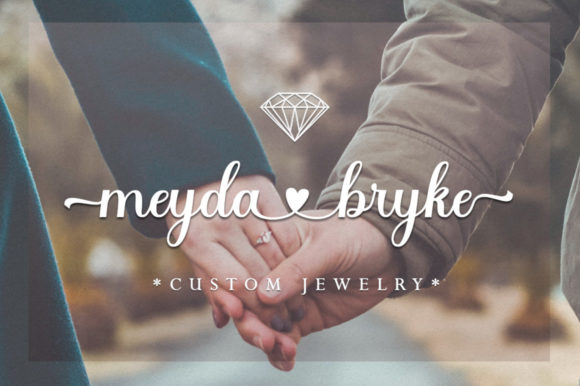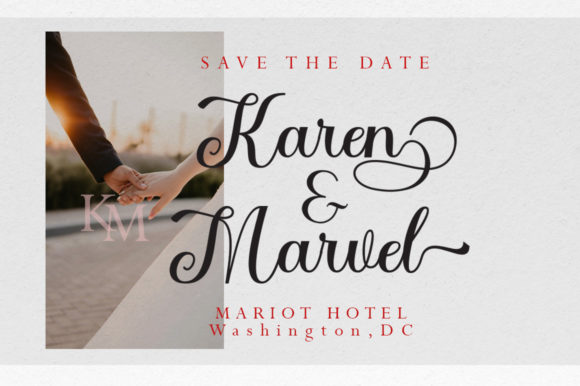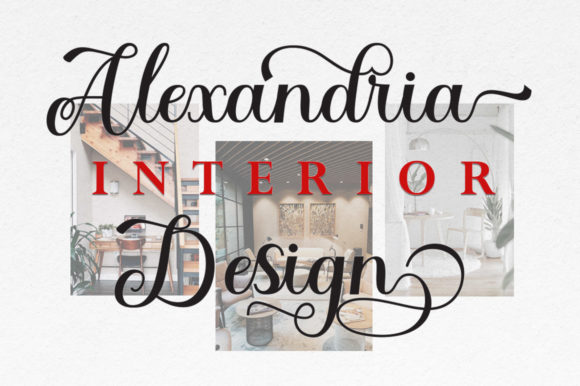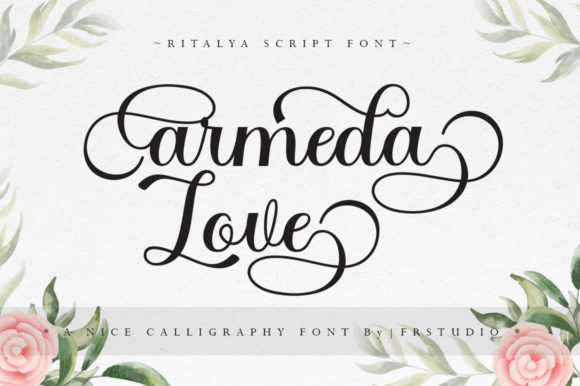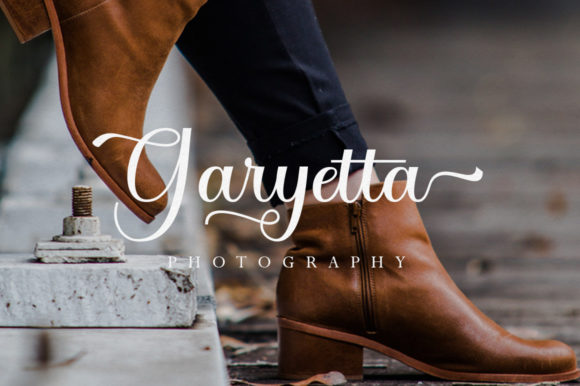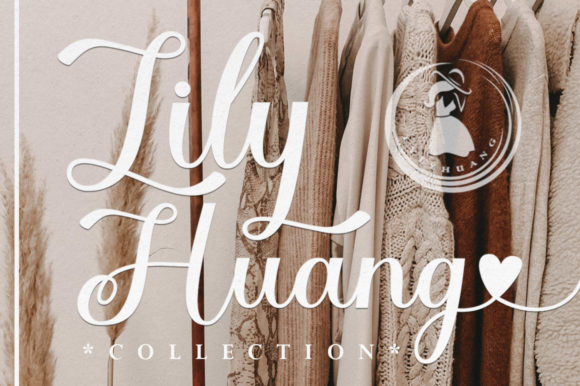
Introduction to Ritalya Font Font
Fonts play a crucial role in design, and the Ritalya Font font is a typeface that brings both character and versatility to any project. Whether you’re working on a branding project, a website, or a print design, the Ritalya Font font offers a unique style that can elevate your work.
Ritalya is a delicate, stylish and chic script font.
It has a beautiful and balanced character, that fits well with the large design pool This font is PUA encoded which means you can access all of the glyphs and swashes with ease.
The Ritalya Font font is more than just a typeface – it’s a design tool that helps you communicate your message with style and clarity. Its unique character set and versatile design make it suitable for a wide range of applications, from elegant invitations to bold headlines.
With its carefully crafted letterforms and balanced proportions, the Ritalya Font font ensures readability and visual appeal across all mediums.
The Ritalya Font font stands out with its unique design, exceptional readability, and versatility across various design applications.